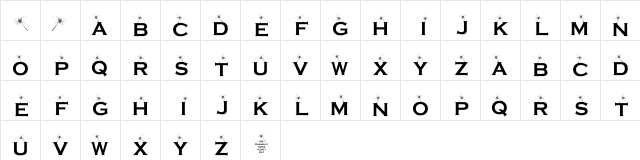
KR Ramara's Twink Regular
Design Context for KR Ramara's Twink Typeface
KR Ramara's Twink is a composed and adaptable typeface that performs quietly and consistently across a wide range of design contexts.